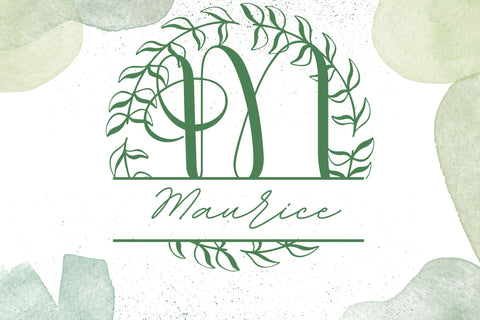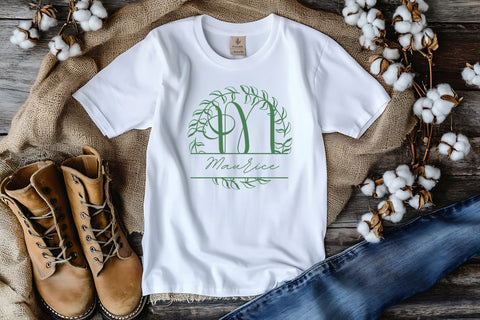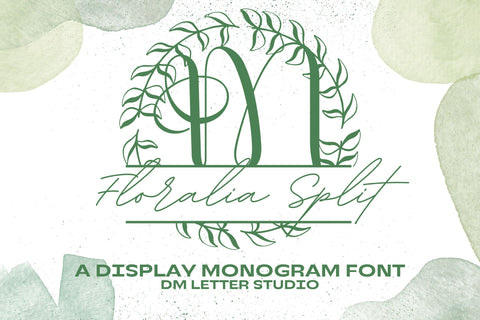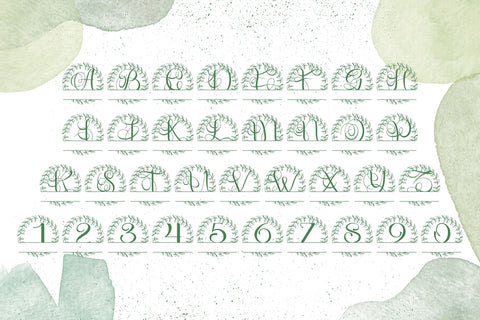
Floralia Split Monogram – Elegant Botanical Split Letter Font
Floralia Split Monogram is a refined and romantic botanical split monogram font designed for creators who want to personalize initials with a floral flair. This uppercase serif font features a clean horizontal split across each letter, leaving space to insert names, dates, or custom text—perfect for wedding invitations, personalized gifts, branding, and creative Cricut or Silhouette projects.
Built from the same graceful foundation as the original Floralia Monogram, the split version adds extra versatility while preserving its delicate aesthetic. Each capital letter is adorned with hand-drawn botanical flourishes—vines, blossoms, and leaves—that curve gently around the serif form. Whether you're creating engraved gifts, vinyl decals, or elegant signage, this font helps you add a signature touch to every design.
Floralia Split Monogram is ideal for romantic, feminine, and nature-inspired themes. Use it to design bridal shower décor, baby nameplates, thank-you cards, or small business logos with a personalized twist. The split feature makes customization simple—just type your chosen letter, add your name or message in the space, and let the font’s charm do the rest.
Split monogram serif font with floral decoration
Ideal for personalized gifts, wedding stationery, and branding
Elegant horizontal split for name or message insertion